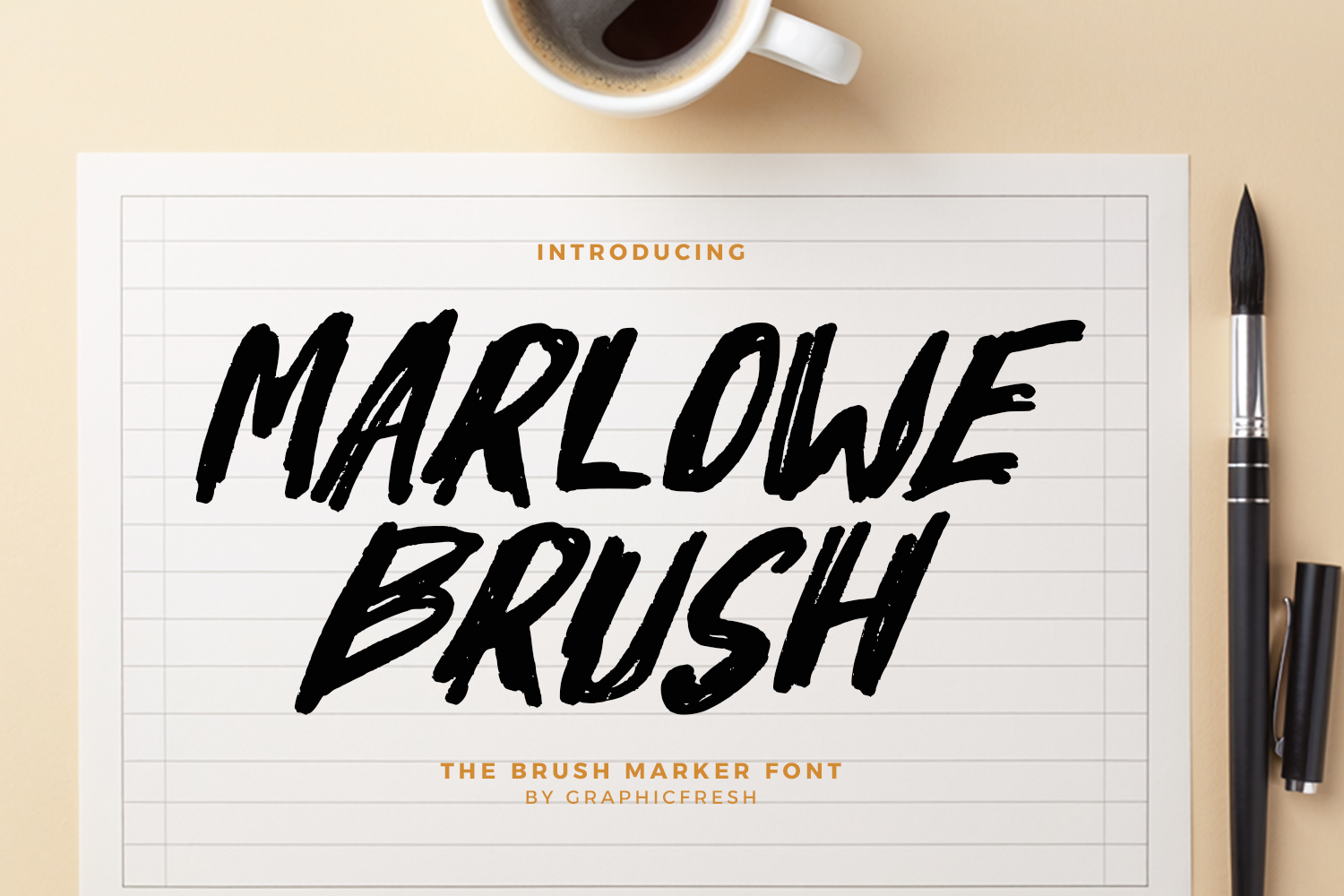
Marlowe - The Brush Marker Font
Marlowe is a brush marker font crafted with bold strokes and authentic marker texture. Inspired by real hand-drawn lettering, this font delivers a natural flow with confident and expressive character. Its smooth curves and slightly rough edges create a perfect balance between casual energy and modern clarity. Marlowe works beautifully for branding, headlines, social media graphics, posters, packaging, and creative projects that need a strong handwritten marker style with personality.